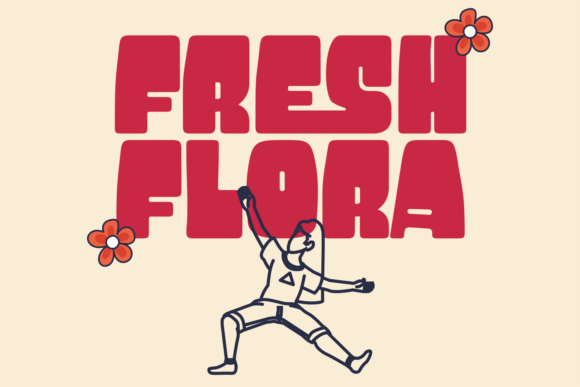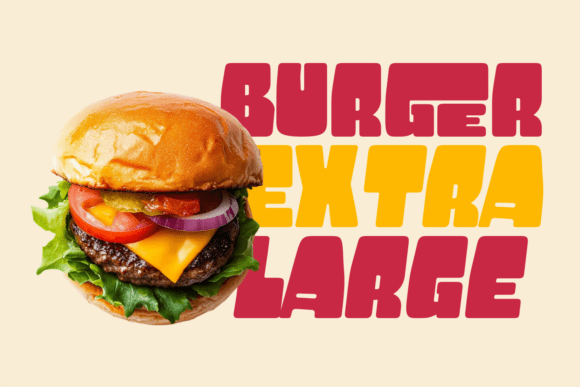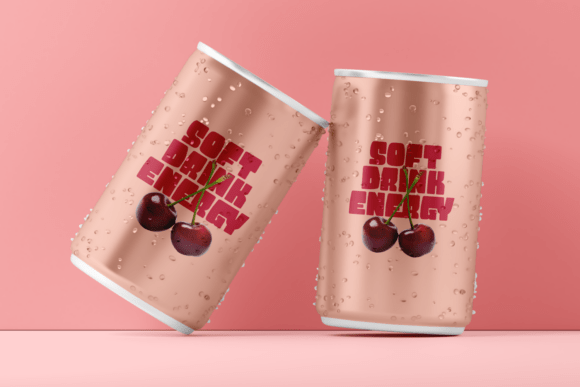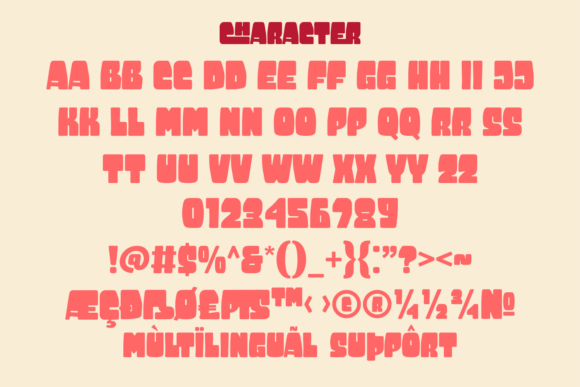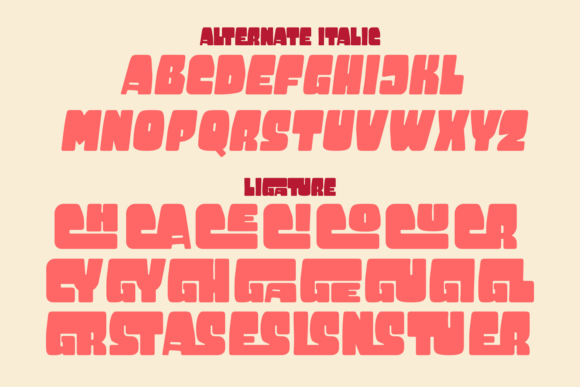
Chunk Energy Font: A Bold and Playful Typeface for Impactful Designs
Are you looking for a font that can add a strong retro and playful touch to your designs? Look no further than Chunk Energy Font. This bold, heavy display typeface is perfect for creating eye-catching headlines, titles, and captions that demand attention. In this article, we’ll explore the features and benefits of Chunk Energy Font, and why it’s an ideal choice for designers and crafters.
A Friendly yet Powerful Appearance
Chunk Energy Font features thick, chunky letterforms with soft, rounded corners that give it a friendly yet powerful appearance. The overall structure is wide and compact, with low contrast between strokes, making the letters feel solid and block-like. The terminals are rounded rather than sharp, which softens the heaviness and adds a slightly cartoonish, approachable tone. This balance between weight and smooth curvature creates a bold but not aggressive personality.
Unique Letterforms and Custom Details
Several letters in Chunk Energy Font have custom cut-in details and exaggerated shapes, which add to its playful and retro charm. For example:
- The “E” has shortened middle arms, giving it a distinctive look.
- The “R” features a large rounded bowl and a thick, simple leg, making it easily recognizable.
- The “G” has a strong, enclosed form with a bold internal cut, adding to its bold personality.
- The “Y” boasts a thick, straight stem and wide upper arms, making it a striking letterform.
Tight and Compact Spacing
The spacing in Chunk Energy Font is tight and compact, reinforcing the strong visual impact of the font. This makes it perfect for headlines, titles, and captions where you want to create a bold statement. The compact spacing also helps to create a sense of unity and cohesion, making your text look more cohesive and visually appealing.
Ideal for Large Sizes
Because of its mass and thickness, Chunk Energy Font performs best at large sizes. This makes it ideal for:
- Headlines and titles where you want to create a bold statement.
- Posters, flyers, and brochures where you want to grab attention.
- Logos and branding where you want to create a strong, memorable impression.
Chunk Energy Font offers several benefits for designers and crafters, including:
- Easy to read: Despite its bold and chunky appearance, Chunk Energy Font is easy to read, even at large sizes.
- Versatile: Chunk Energy Font can be used for a wide range of design projects, from posters and flyers to logos and branding.
- Customizable: The font’s bold and playful personality makes it easy to customize and adapt to your design needs.
In conclusion, Chunk Energy Font is a bold and playful typeface that’s perfect for designers and crafters looking to add a strong retro and playful touch to their designs. With its unique letterforms, custom details, and tight and compact spacing, Chunk Energy Font is ideal for creating eye-catching headlines, titles, and captions that demand attention. Whether you’re designing posters, flyers, logos, or branding, Chunk Energy Font is a versatile and customizable font that can help you achieve your design goals.